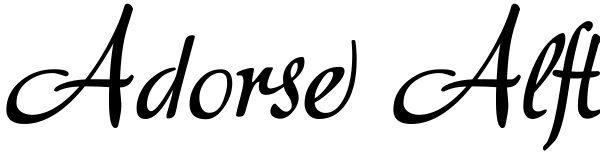
Adore
In 1939 the Stephenson Blake Company bought a very popular script called Undine Ronde and began marketing under the name Amanda Ronde. Although Undine/Amanda was quite popular and can be seen in many advertisements from the 1930s and 1940s, there...
Adore Alt
Adore Regular